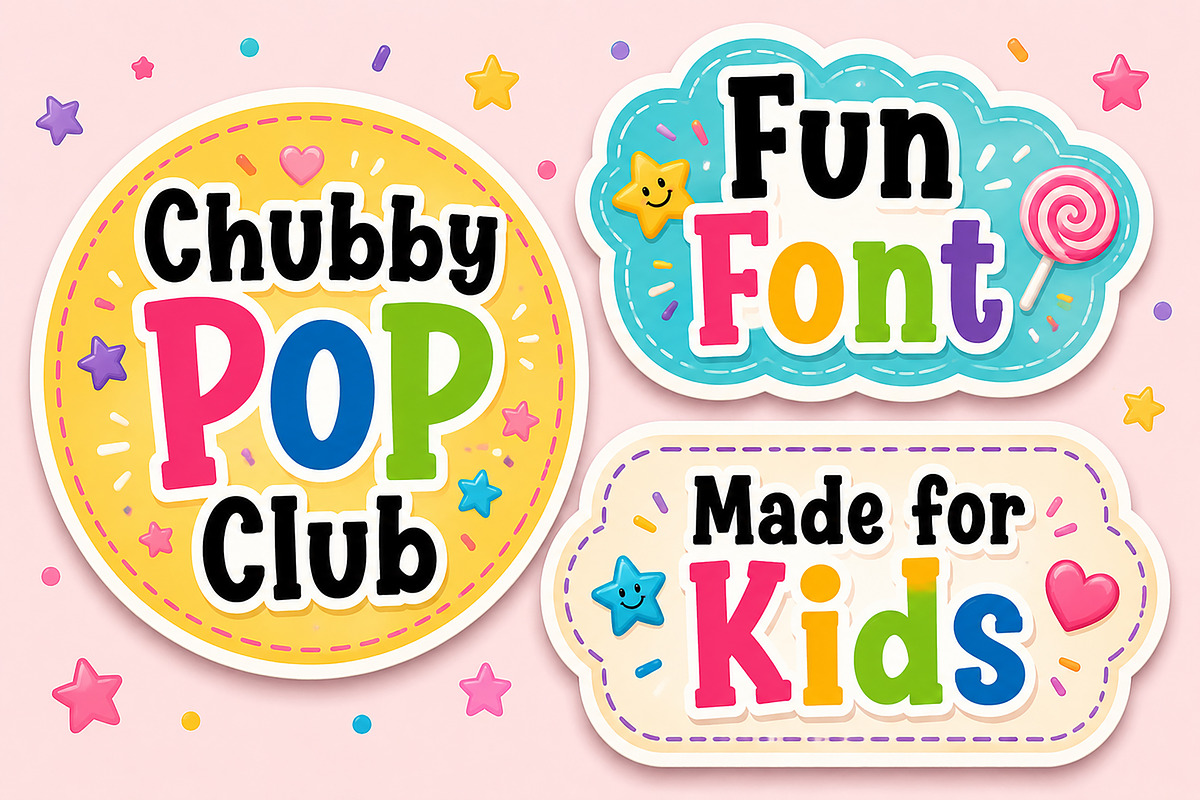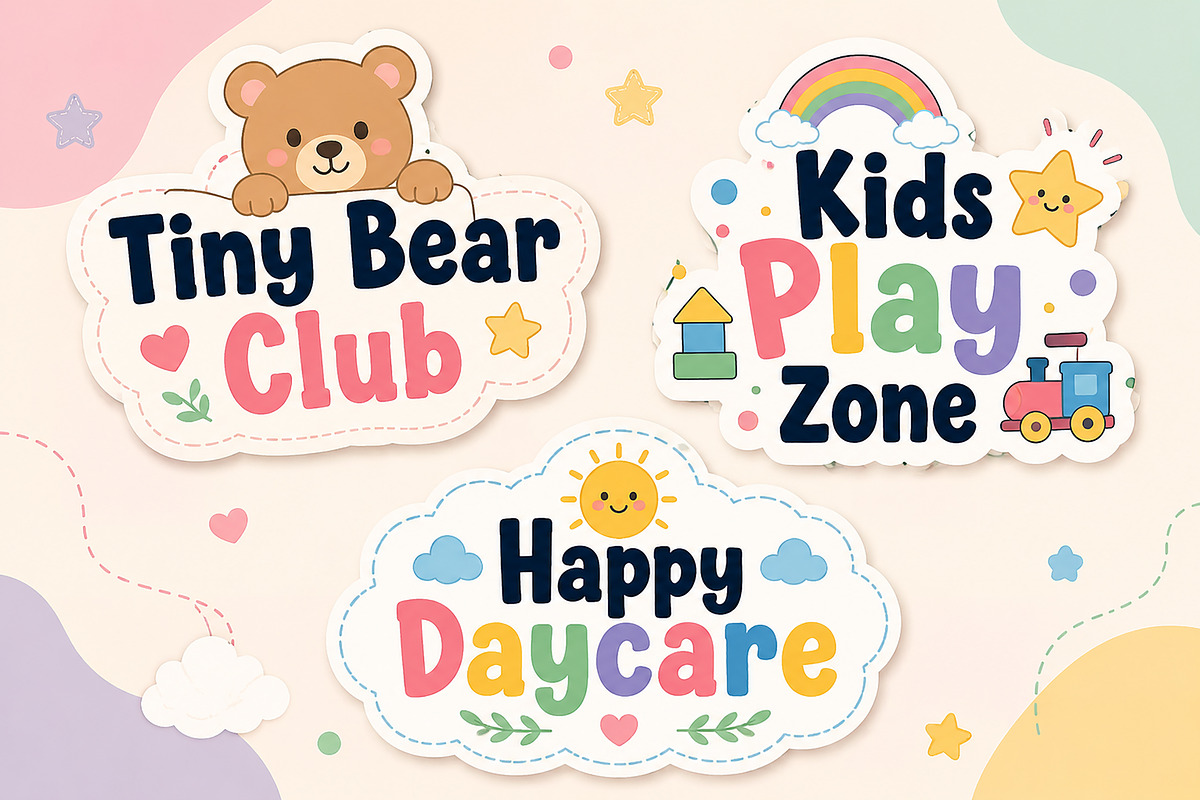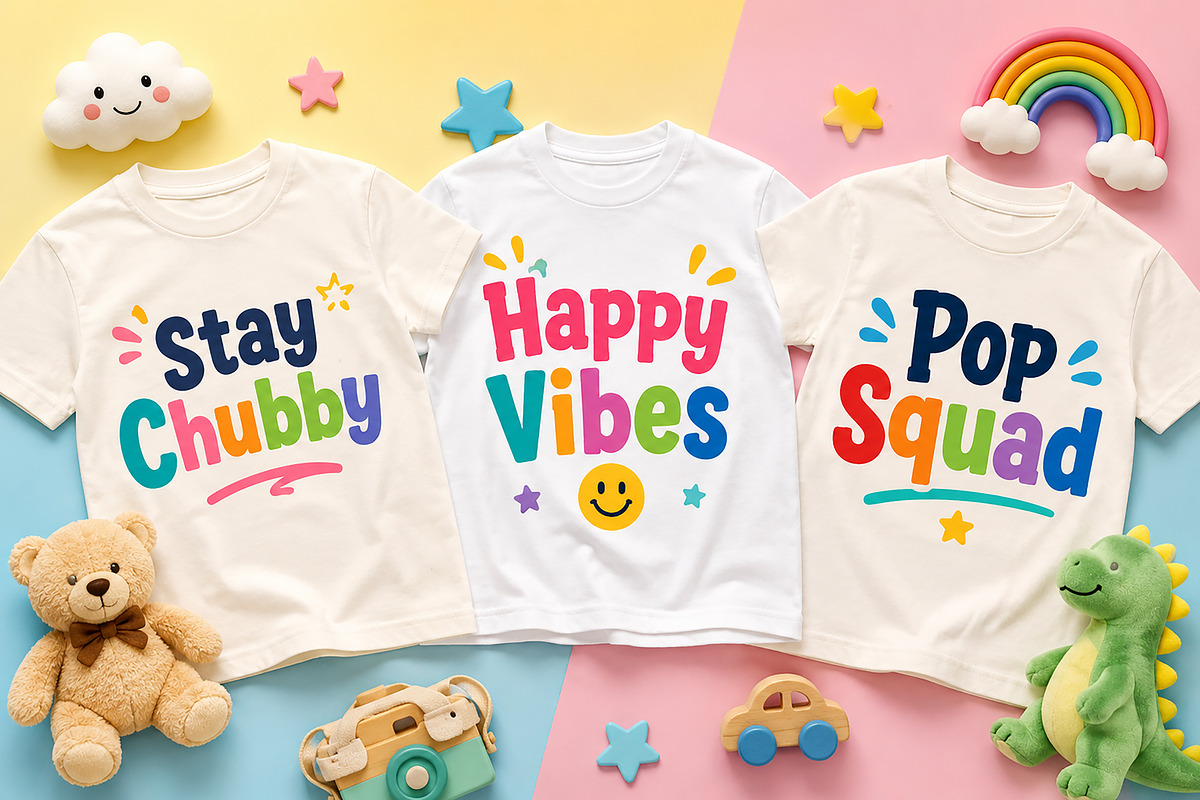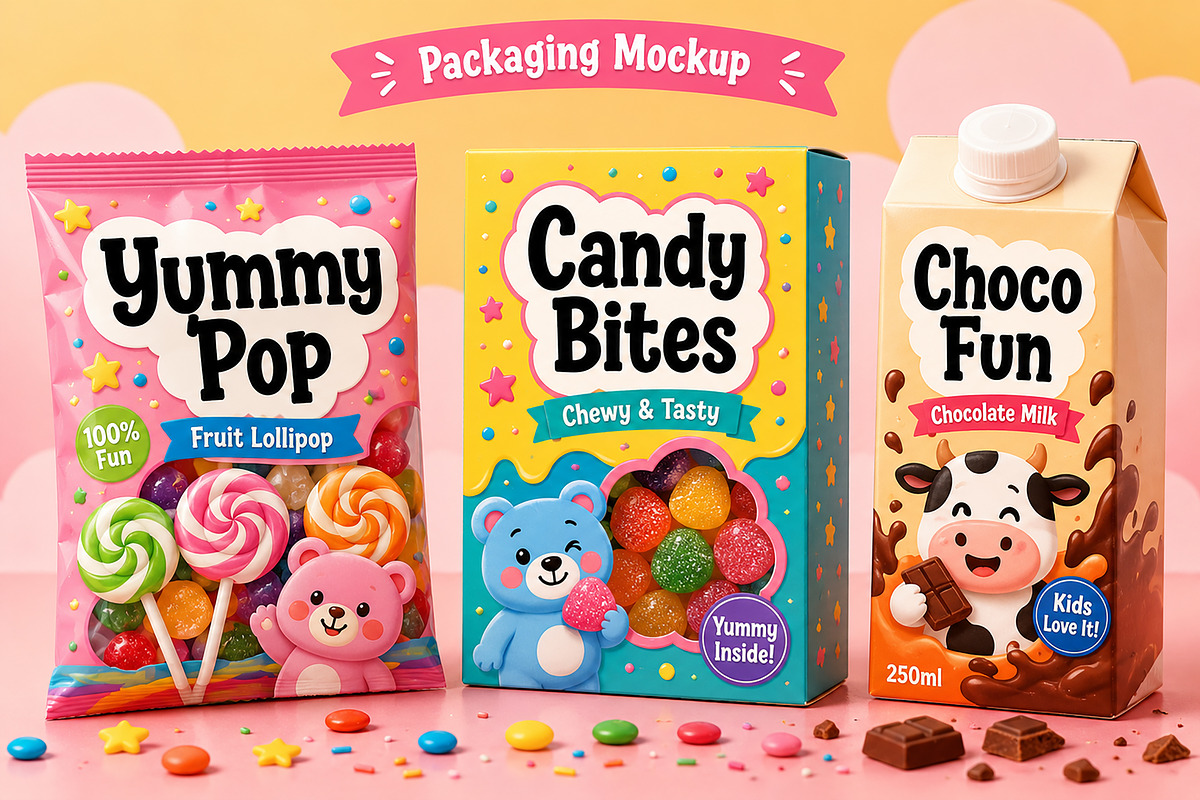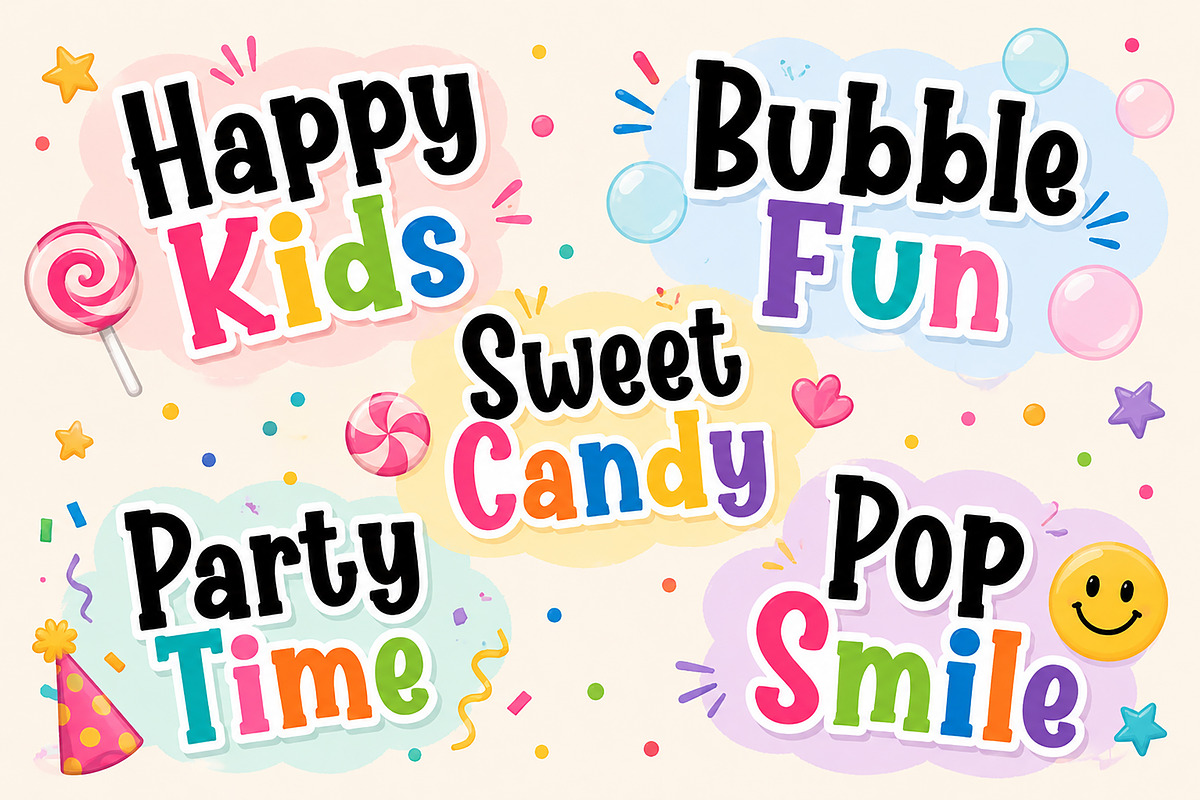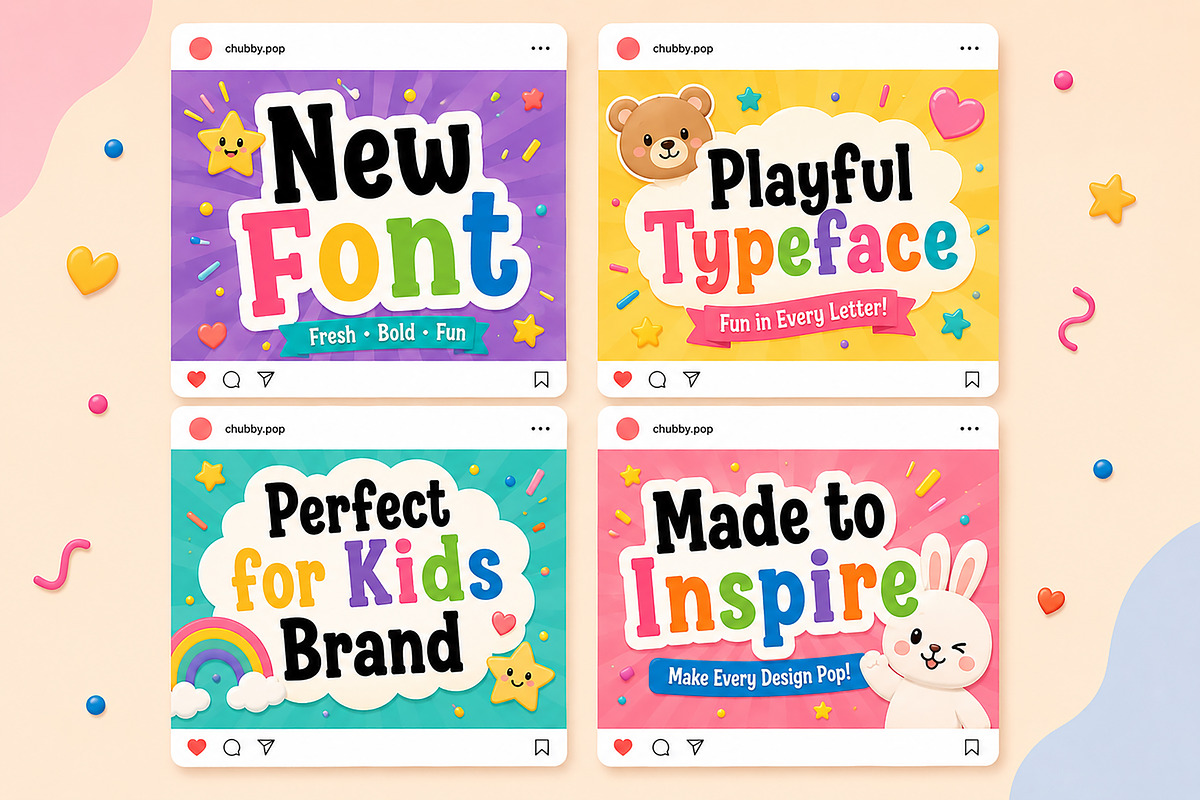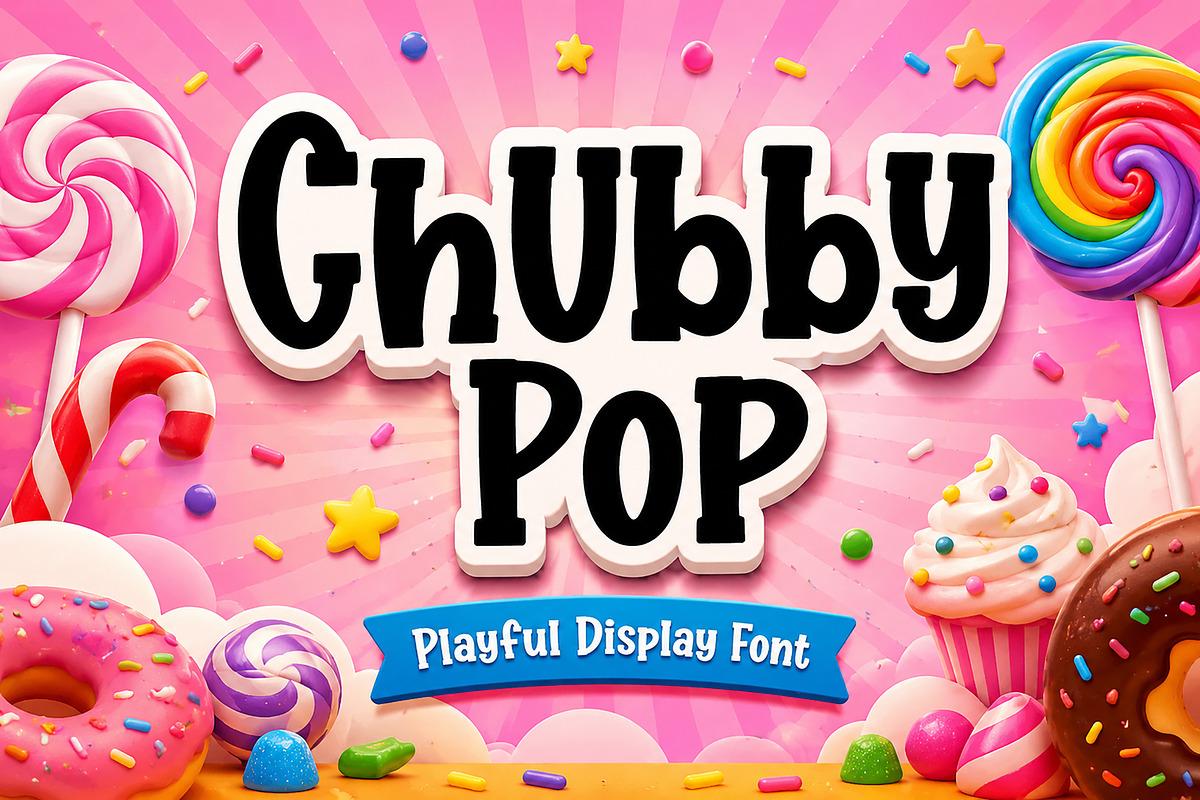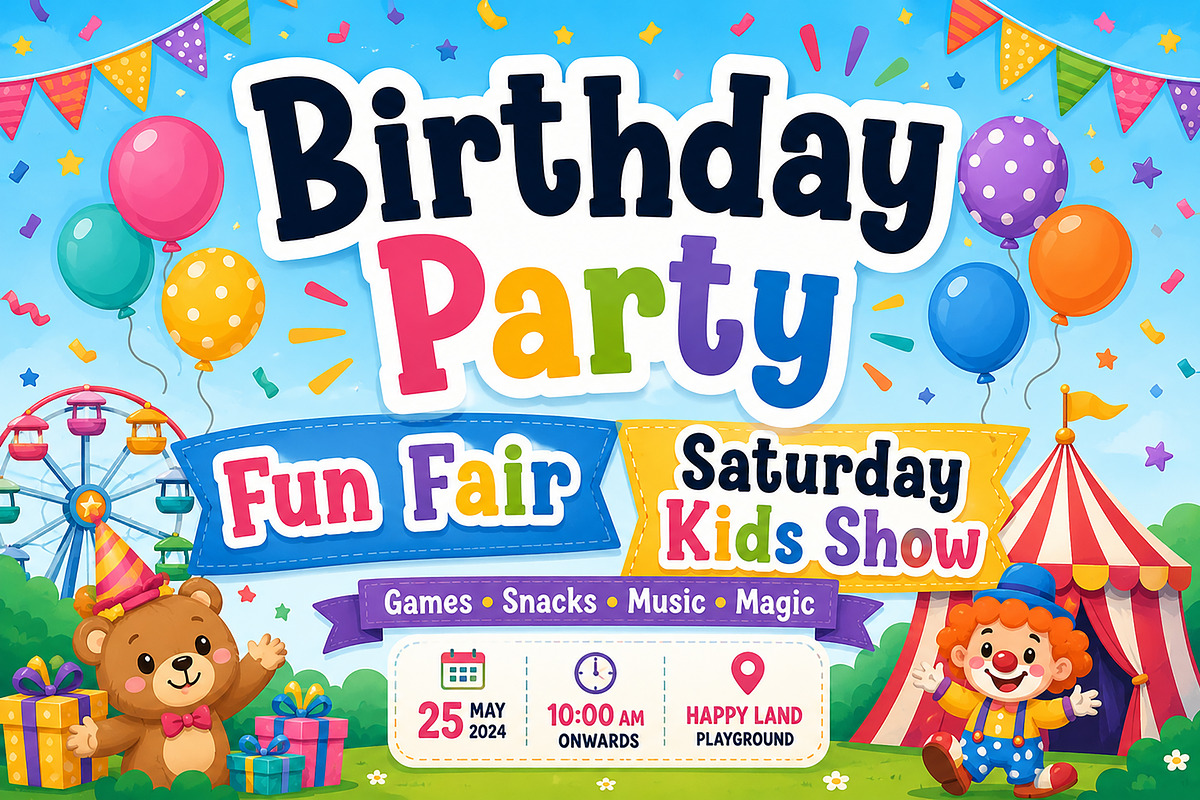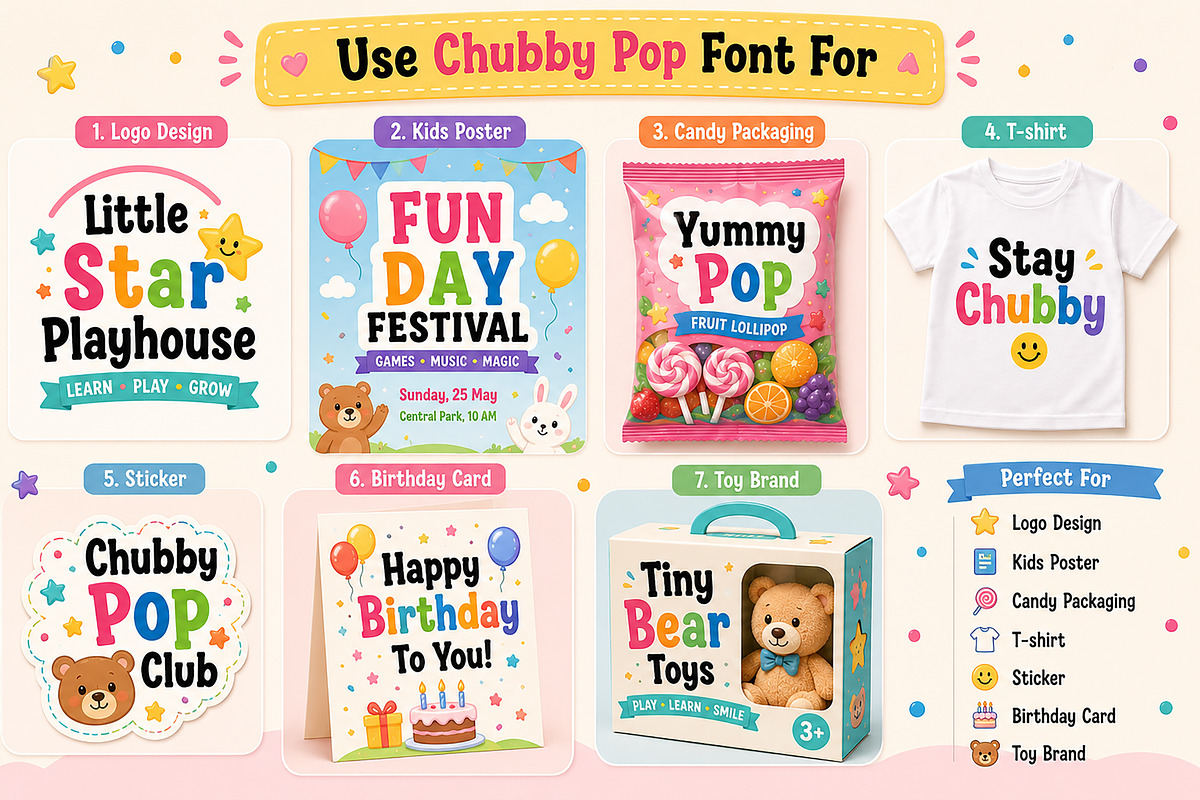
Chubby Pop
Chubby Pop – Playful Retro Display Font
Chubby Pop is a fun and chunky display font featuring bold rounded letterforms with a playful retro personality. Inspired by vintage cartoon typography and cheerful pop-style lettering, this font delivers a friendly and energetic look perfect for eye-catching creative designs.
Its soft curves and thick structure create a cute yet bold visual impact, making it ideal for kids branding, candy packaging, posters, apparel, toy branding, social media graphics, birthday designs, stickers, and playful headline typography. The retro-inspired style adds warmth and charm while maintaining strong readability and modern appeal.
Chubby Pop combines nostalgic fun with modern display typography, making it a perfect choice for designers looking for bold, happy, and character-filled lettering.
Kids Branding
Candy Packaging
Birthday Posters
Toy Logos
Apparel Design
Stickers & Labels
Cartoon Titles
Fun Event Designs
Bold Rounded Style
Playful Retro Design
Thick Cartoon Letterforms
Soft Curves & Friendly Shapes
Uppercase & Lowercase Characters